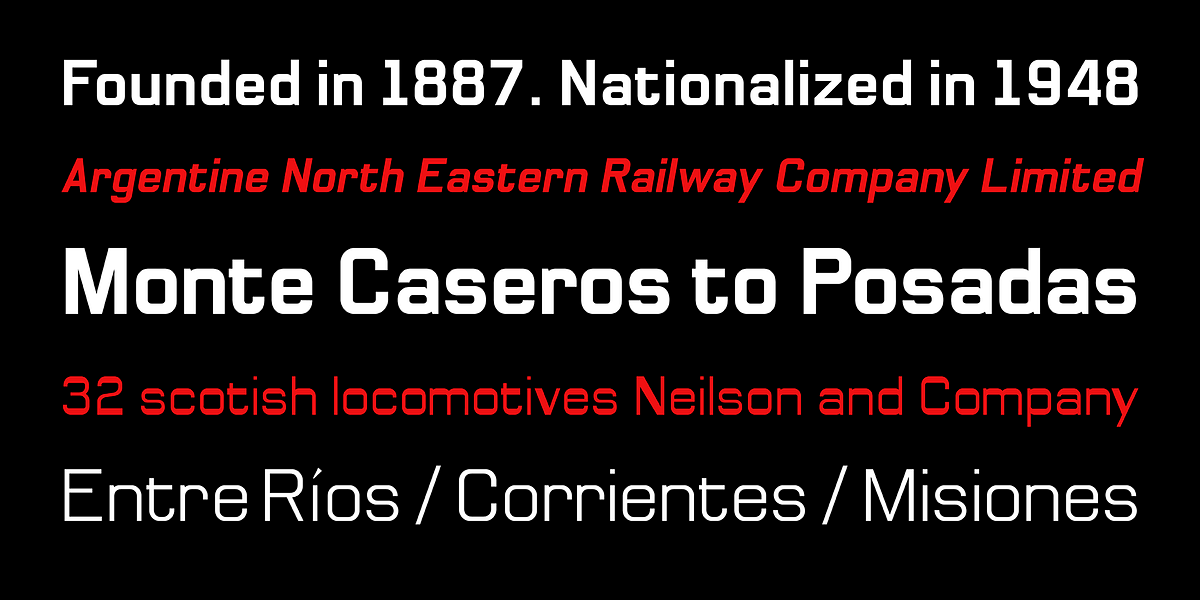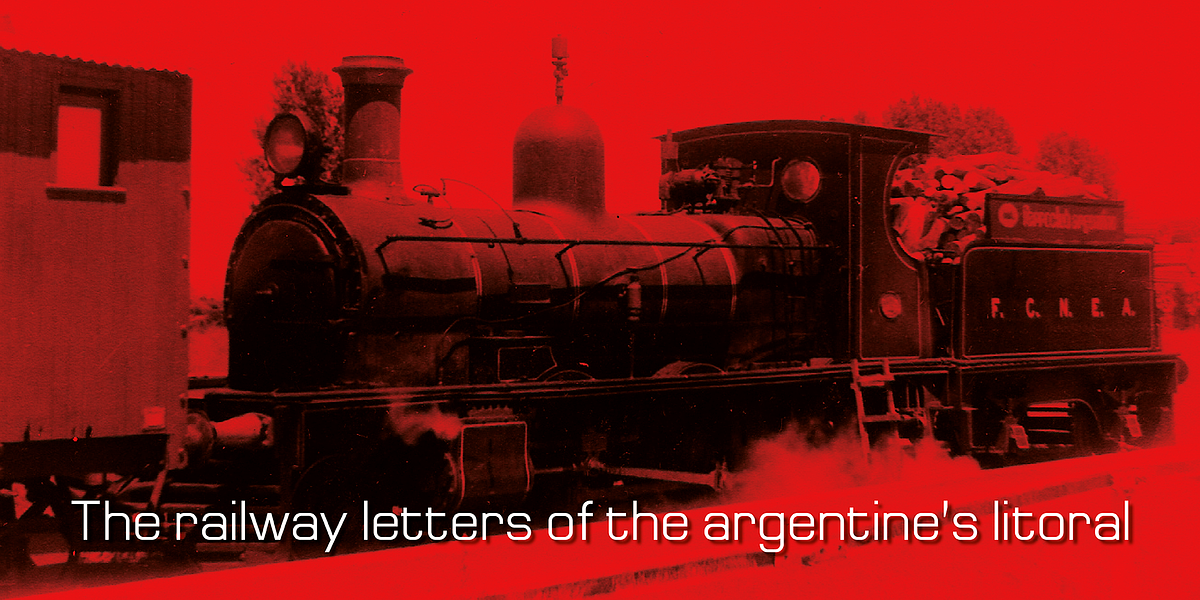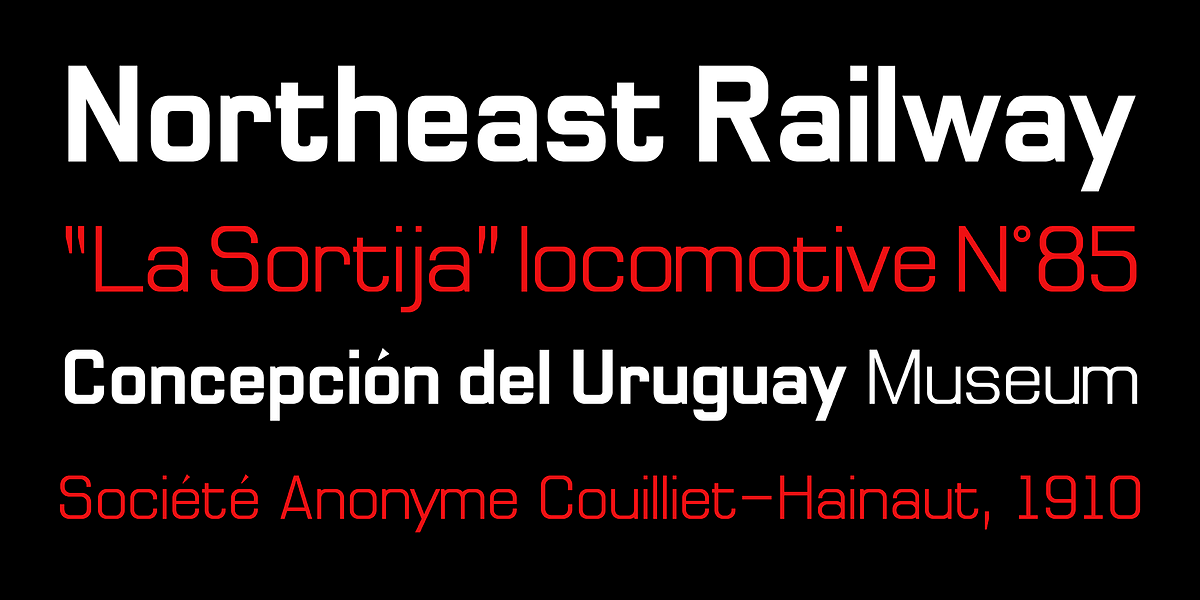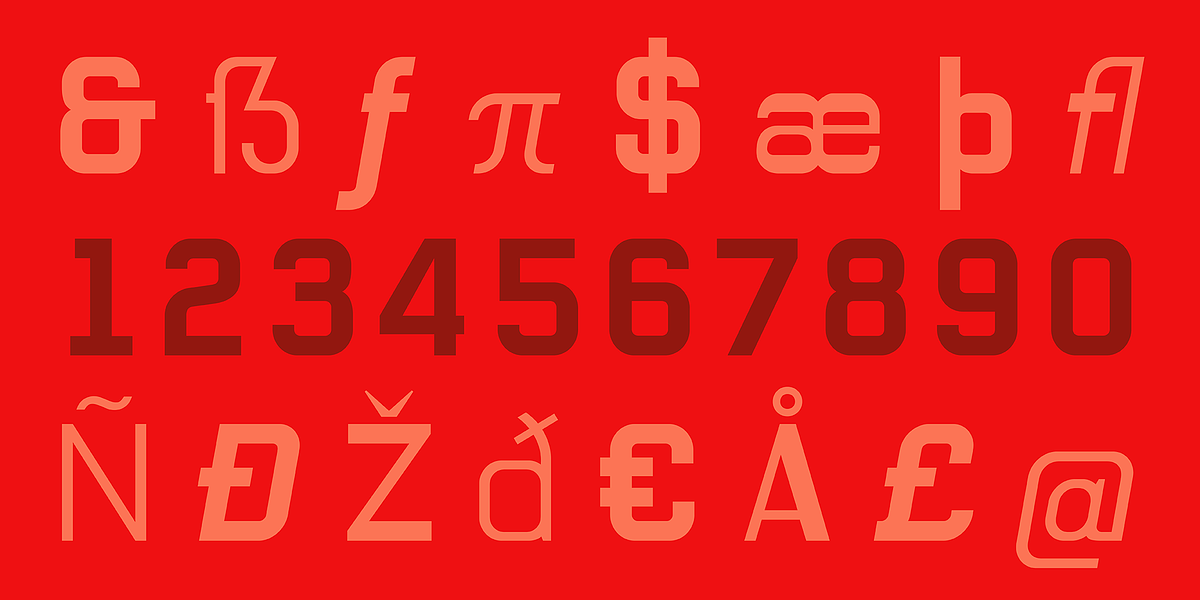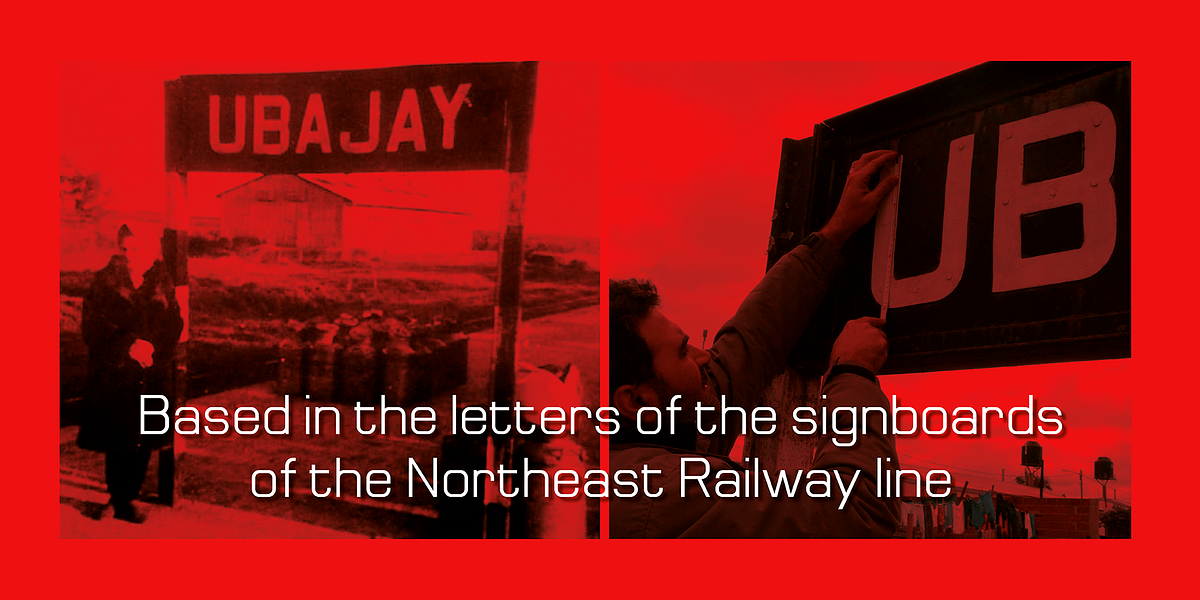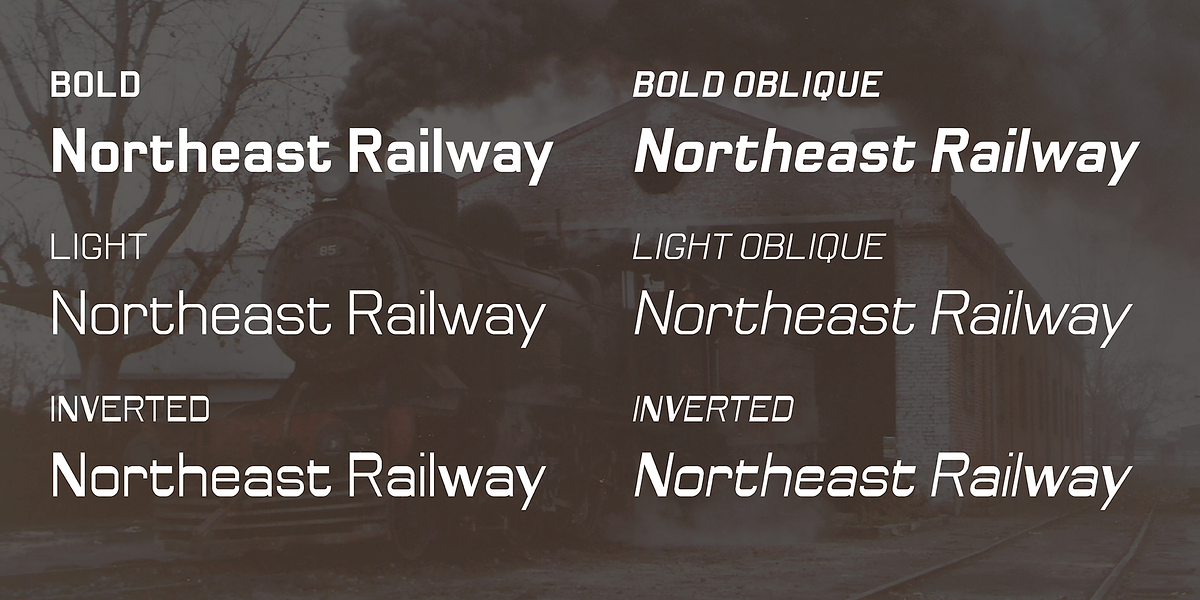
Northeast Railway
Northeast Railway is a bold geometric sans-serif typeface inspired by the signboards of Argentine railway stations. The font family includes complementary styles to support various design needs. Its sharp, clean lines and lack of line modulation give it a strong, industrial feel suitable for headlines, branding, and signage applications.